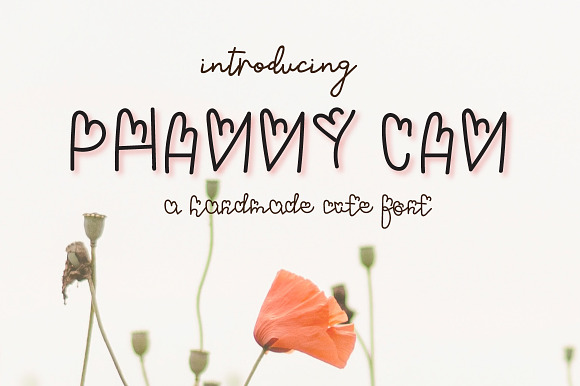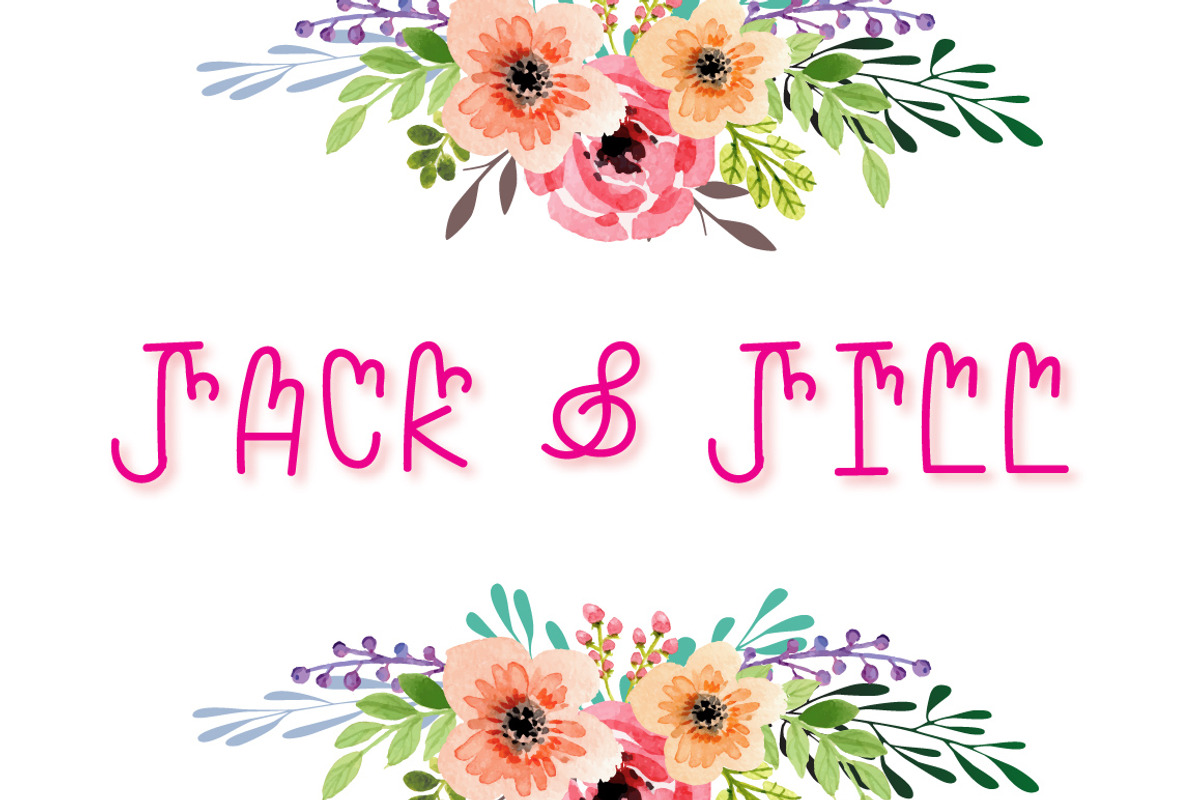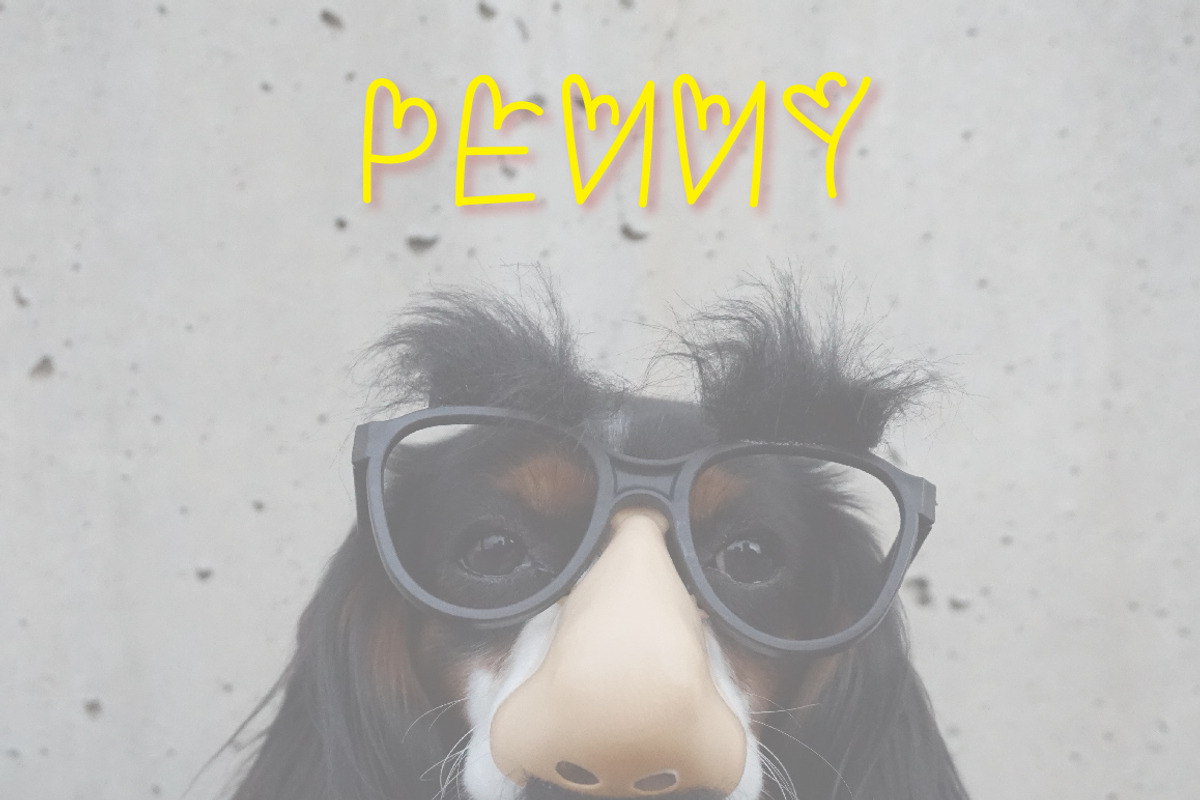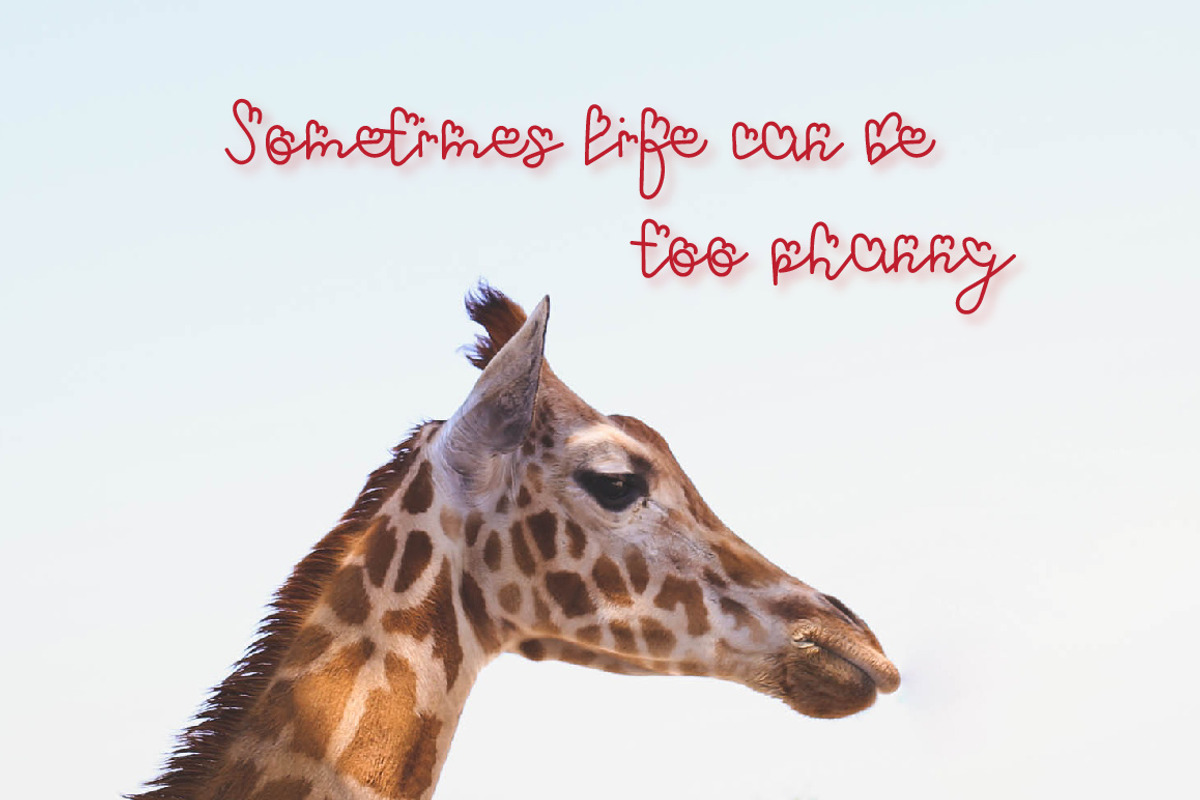
Phanny Can - A cute Font
Phanny Can is a modern script font with tones of alternates, every single letters have been carefully crafted to make your text looks beautiful. With modern script style this font will perfect for many different project ex: quotes, blog header, poster, wedding, branding, logo, fashion, apparel, letter, invitation, stationery, etc.
Phanny Can - A cute Font by Zmapist fits naturally into Branding, posters, packaging, typography.